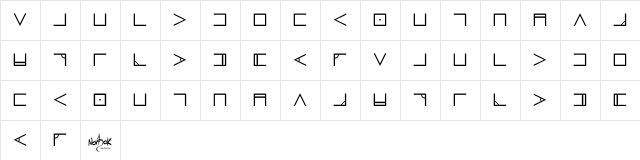
Nugsoth Regular Free Font
Nugsoth Regular
Designer: Thomas W. Otto
Design Context for Nugsoth
Nugsoth is a composed and adaptable typeface that performs quietly and consistently across a wide range of design contexts.